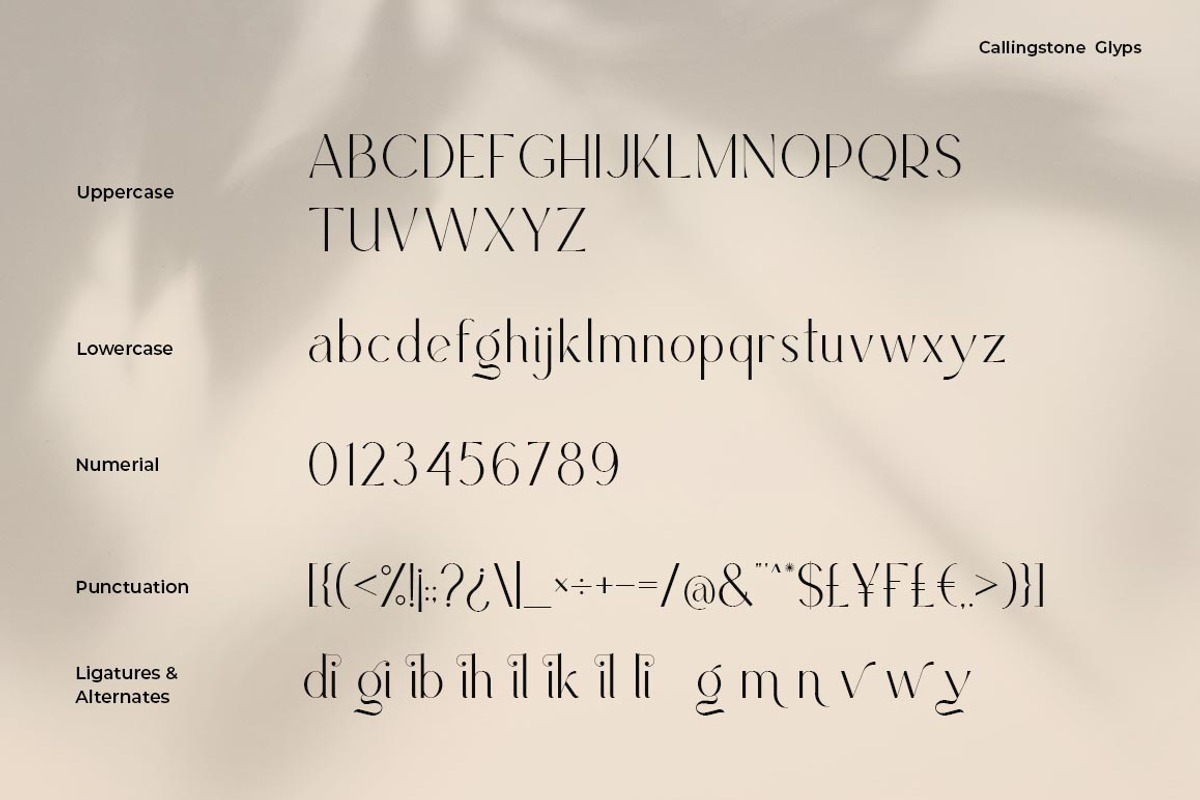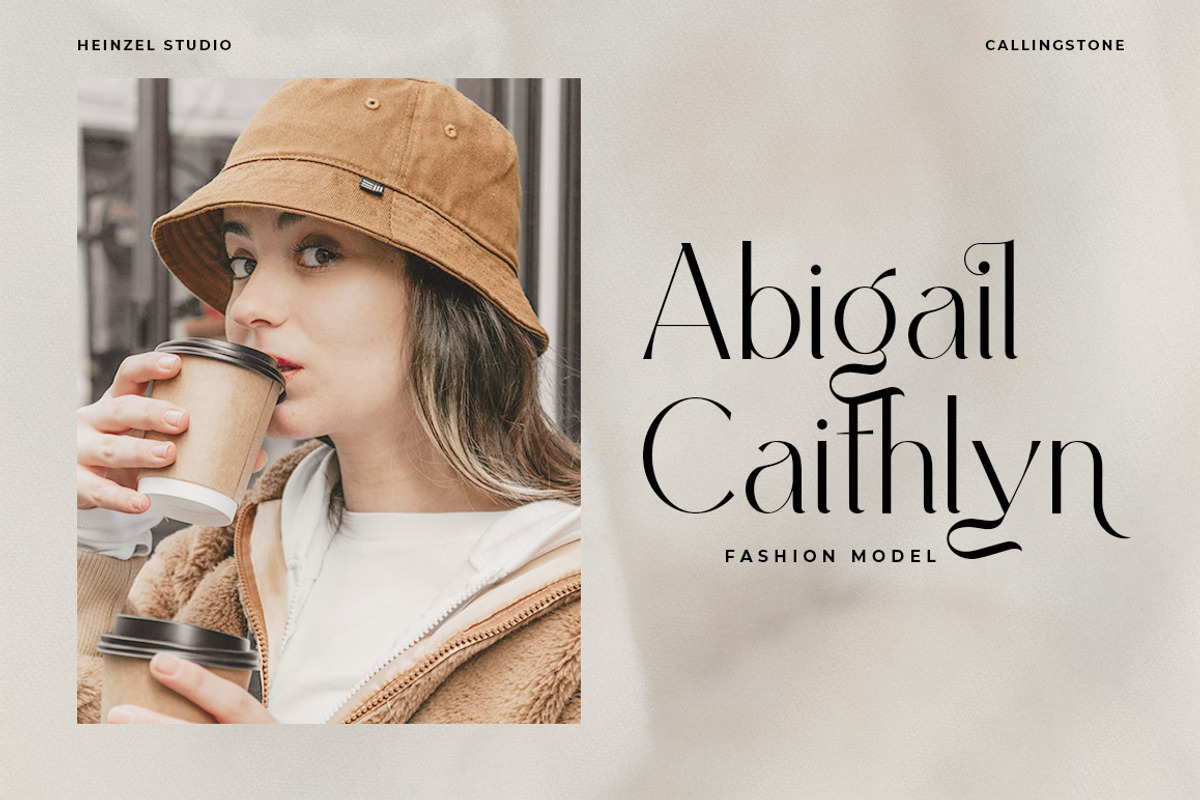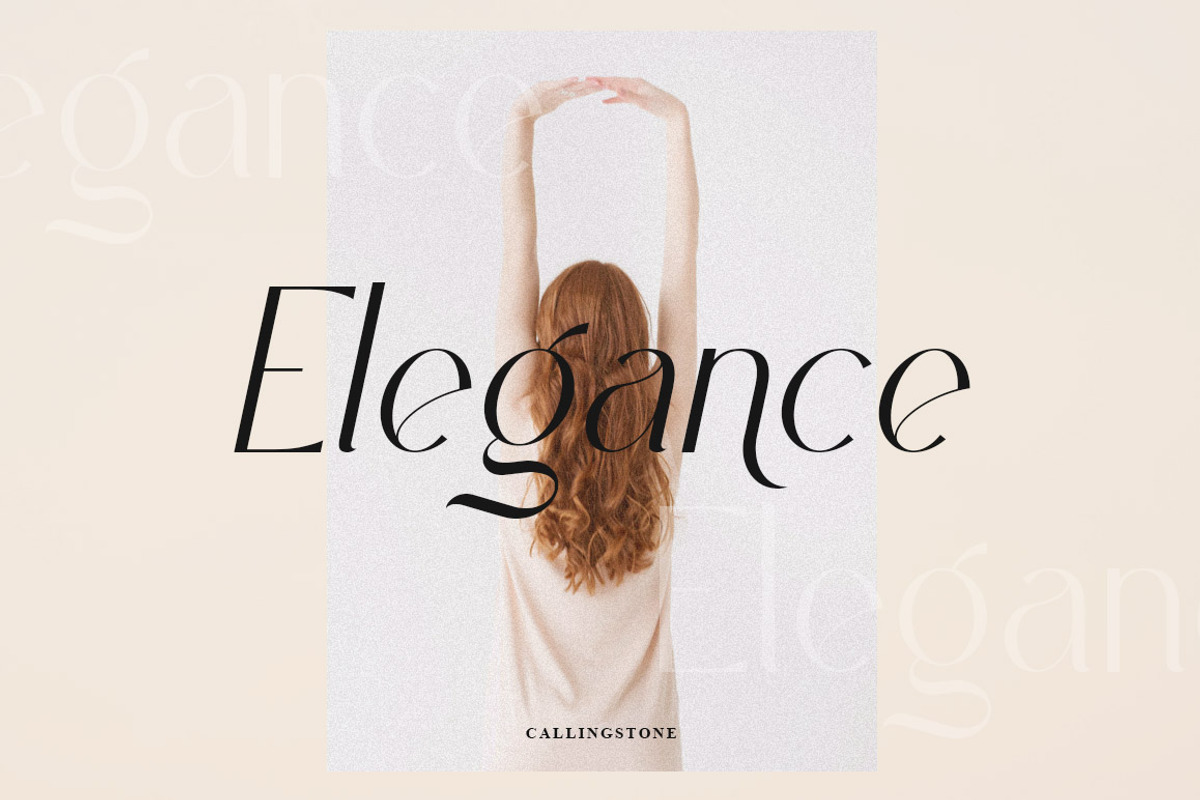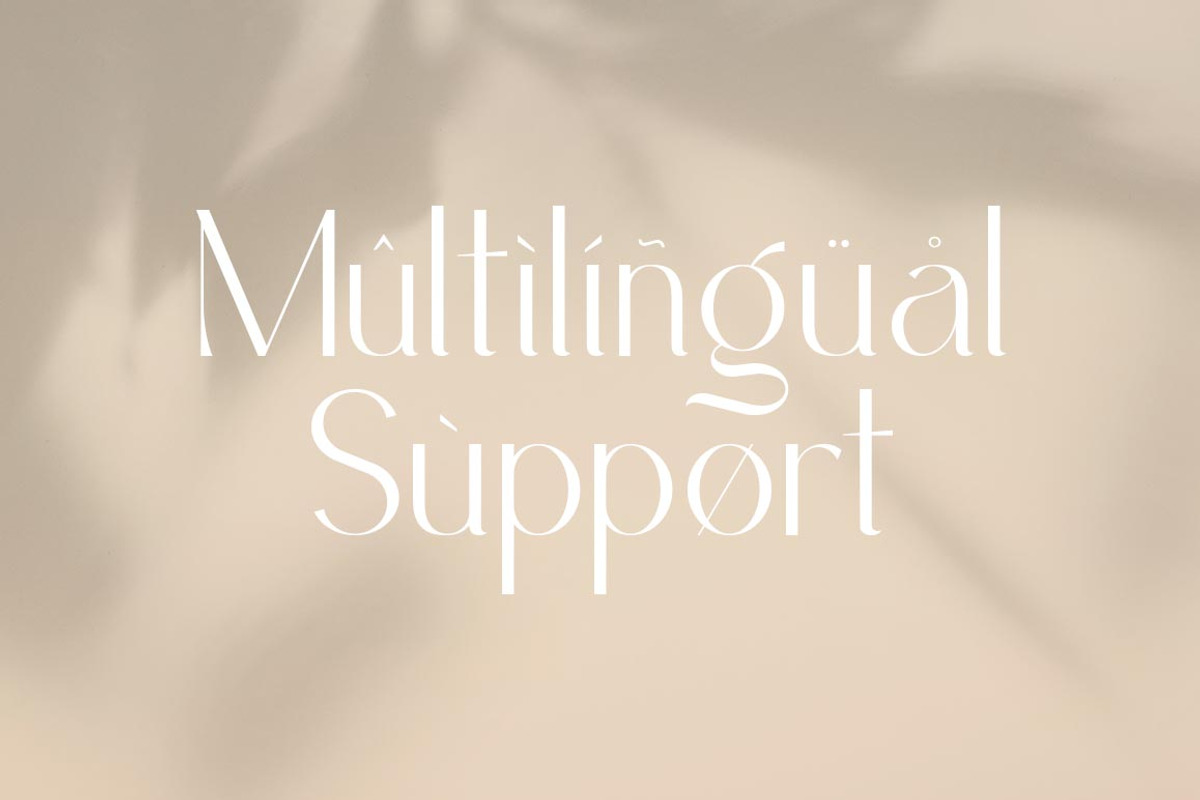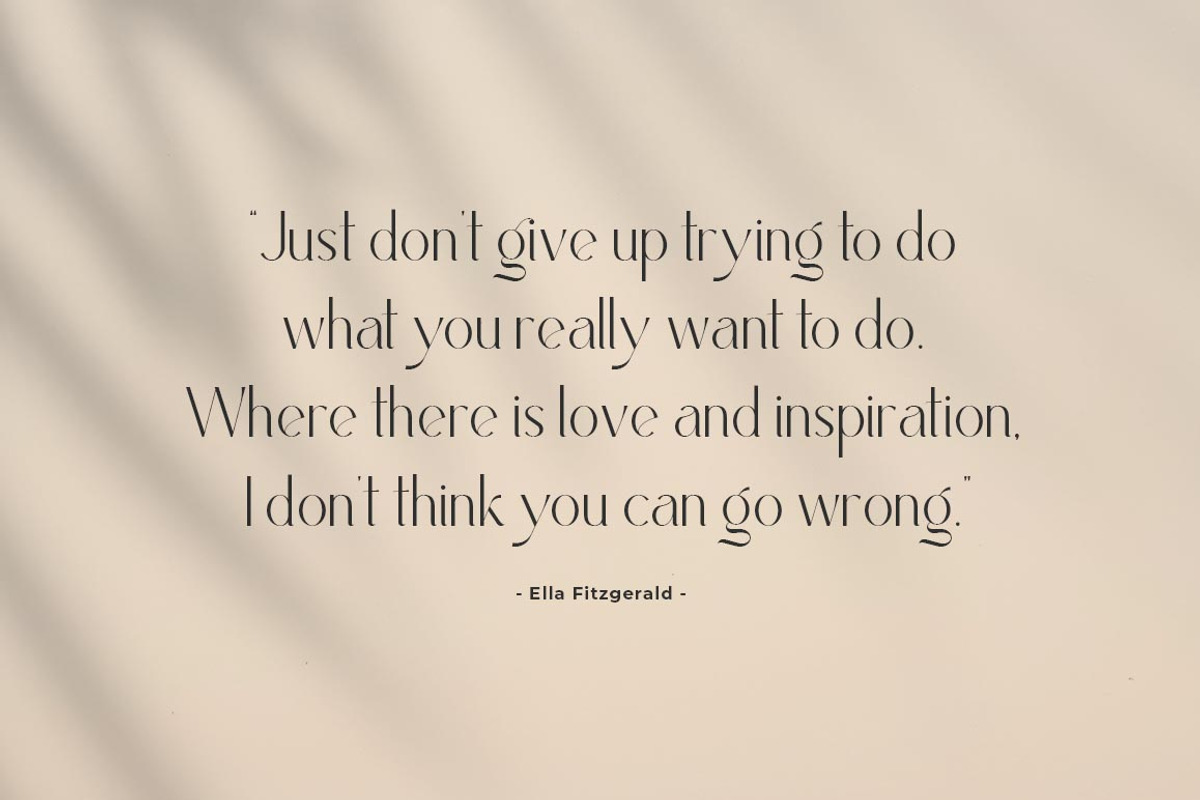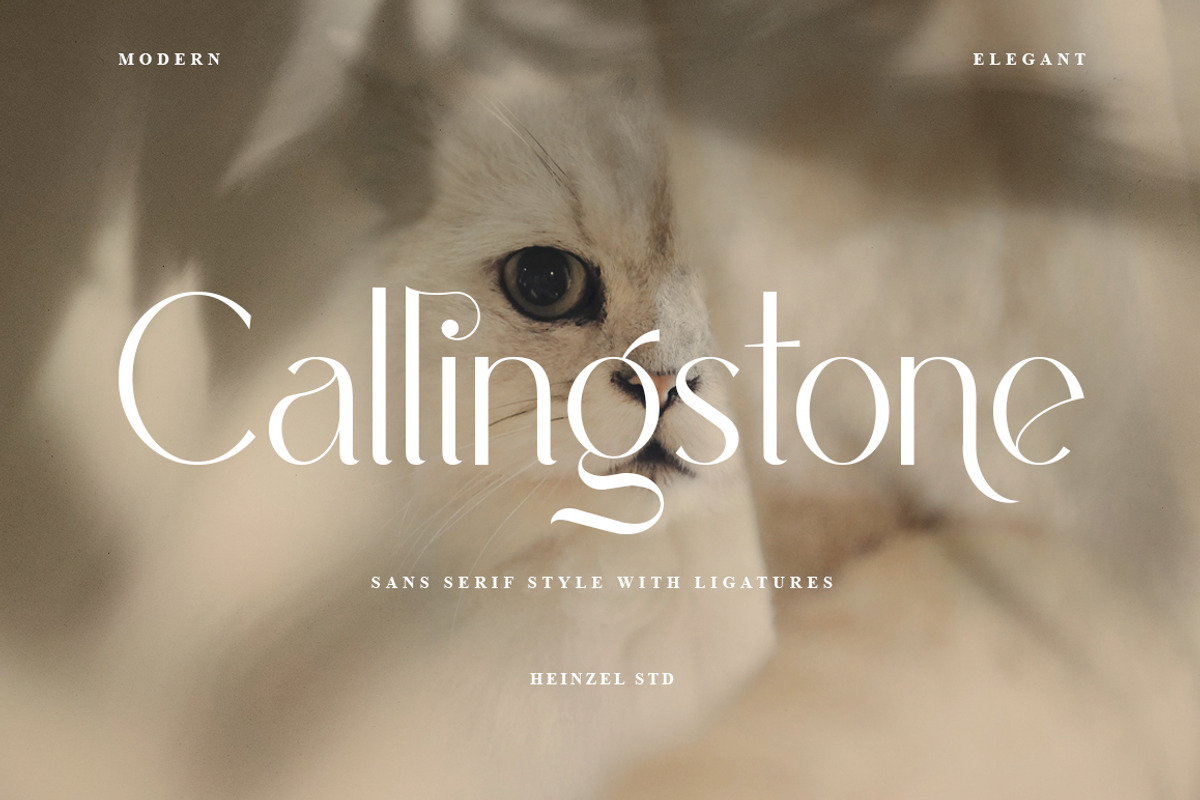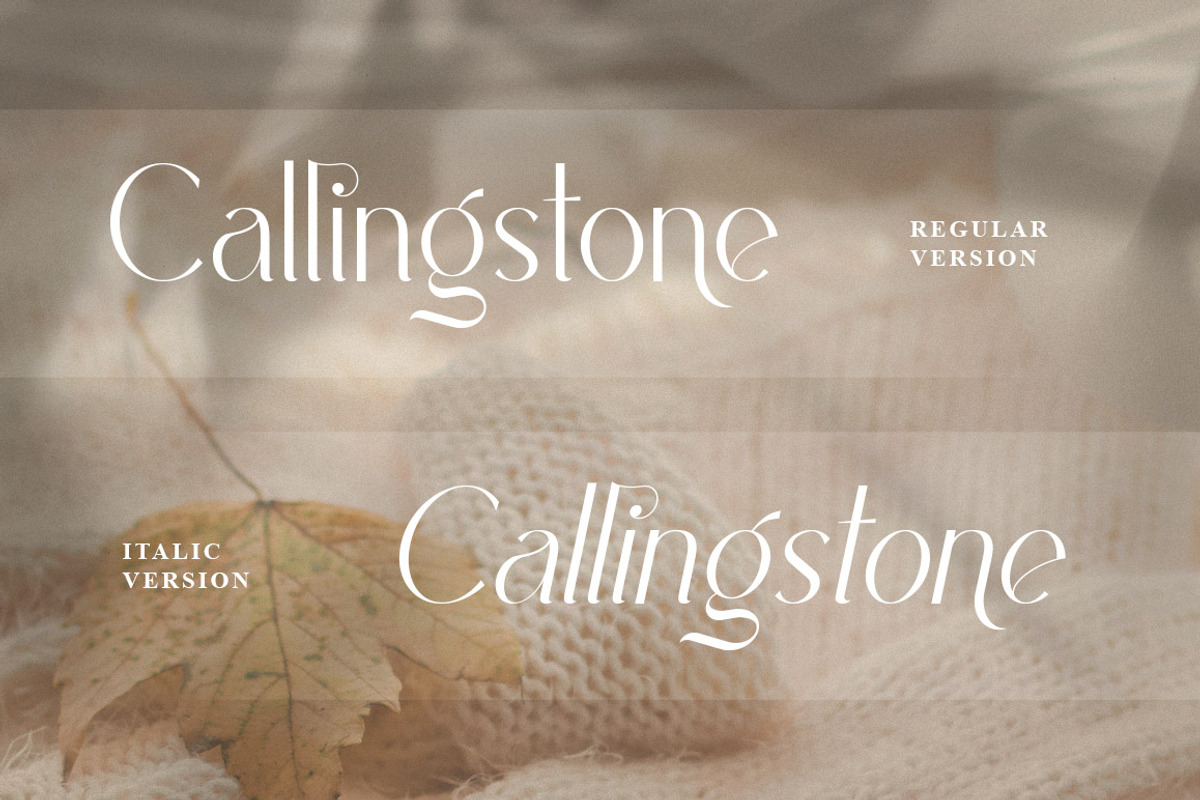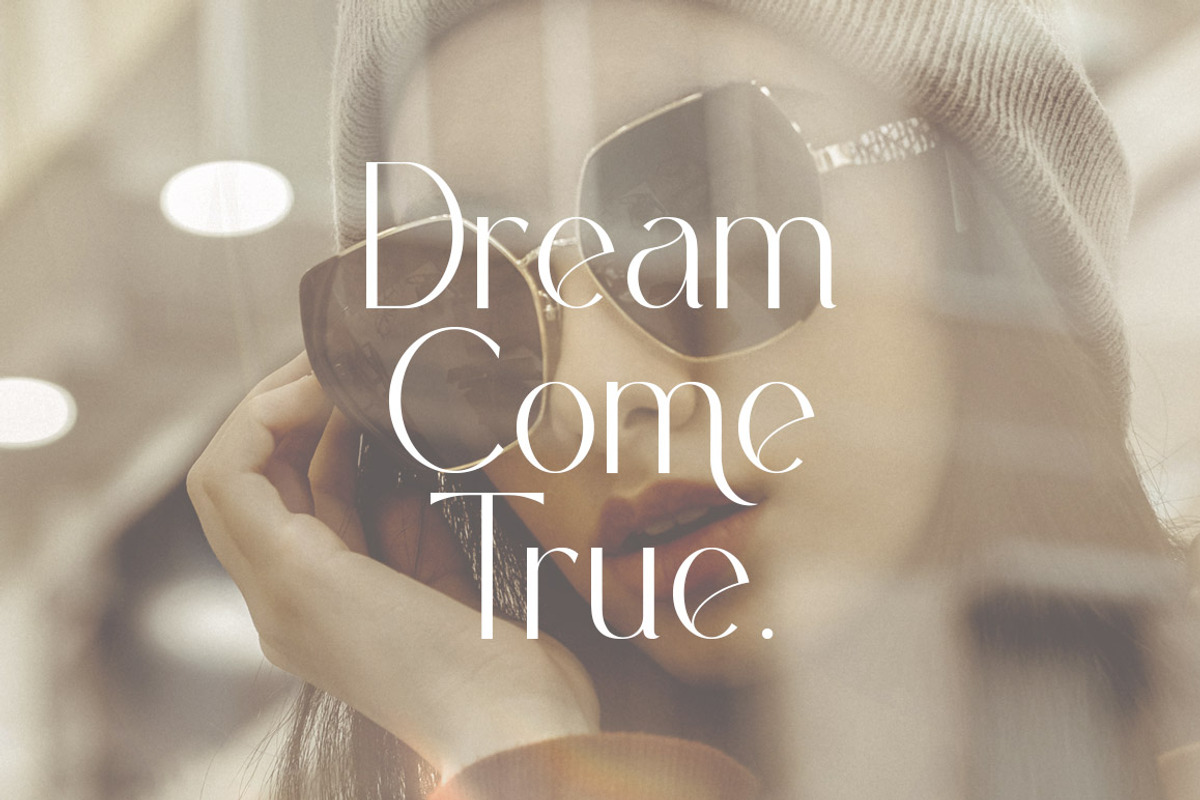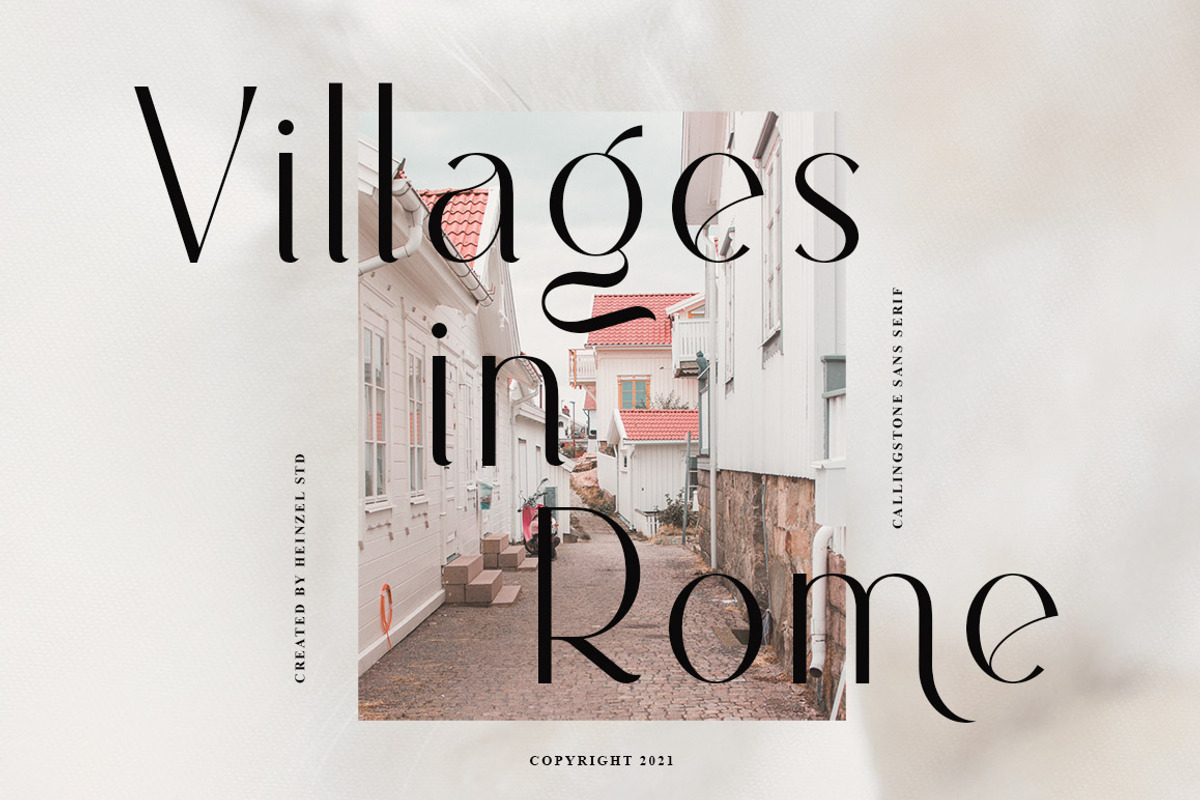
Callingstone Modern Sans Serif Font
Callingstone is an elegant and modern sans serif font. Fall for its ravishing style and use it to create gorgeous wedding invitations, logos, headline, branding, beautiful stationary art, eye-catching social media posts, marketing materials and much more! This font is PUA encoded which means you can access all of the amazing glyphs and ligature with ease!
Callingstone Features :
- Callingstone Regular and Italic
- Uppercase, Lowercase, Numerals, and more punctuations.
- Ligatures and Alternates
- Multilingual support for various languages
This character set supports the following 21 languages: Afrikaans, Basque, Breton, Catalan, Danish, Dutch, English, Finnish, French, Gaelic (Irish, Scots), German, Icelandic, Indonesian, Irish, Italian, Norwegian, Portuguese, Saami (Southern), Spanish, Swahili, Swedish.